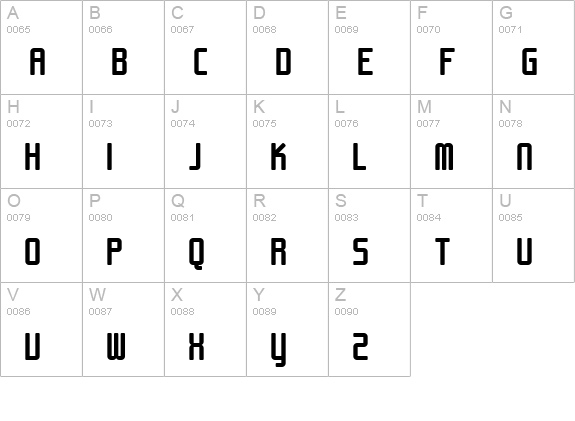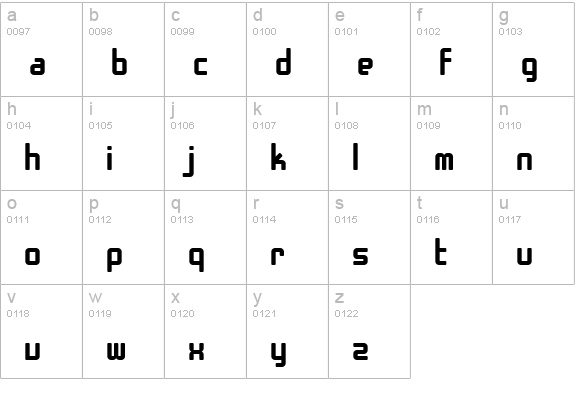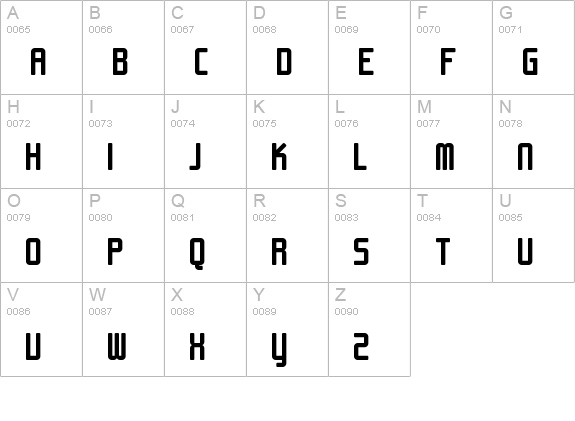
SF Chrome Fenders Bold Font Details
SF Chrome Fenders Bold is a strong, high-contrast variant in the SF typeface family \xE2\x80\x94 well suited to headlines, attention-grabbing titles, and strong calls-to-action.
Introducing SF Chrome Fenders Bold font, a captivating and dynamic typeface that will instantly elevate your design projects to new heights. This modern and edgy font is perfect for those seeking a bold and eye-catching look. With its sharp and angular letterforms, SF Chrome Fenders Bold creates a sense of strength and power, making it ideal for posters, logos, headlines, and any design that requires a strong visual impact. Its versatility allows it to be effortlessly used in both digital and print media. But what sets SF Chrome Fenders Bold apart is that it is not only visually stunning but also freely available to download at FontsMarket.com. Yes, you read it right – this incredible font can be yours at absolutely no cost. This means that you can now enhance your projects without having to worry about breaking the bank. SF Chrome Fenders Bold is designed with precision and attention to detail, ensuring that each character is crafted to perfection. Its clean and legible design ensures readability even at smaller sizes, guaranteeing that your message will always be conveyed effectively. So why wait? Download SF Chrome Fenders Bold now from FontsMarket.com and unleash your creativity. Whether you're a graphic designer, a branding expert, or simply someone who appreciates high-quality typography, this font is a must-have in your collection. Embrace the freedom of creativity, and let SF Chrome Fenders Bold be your secret weapon in making your designs stand out from the crowd.